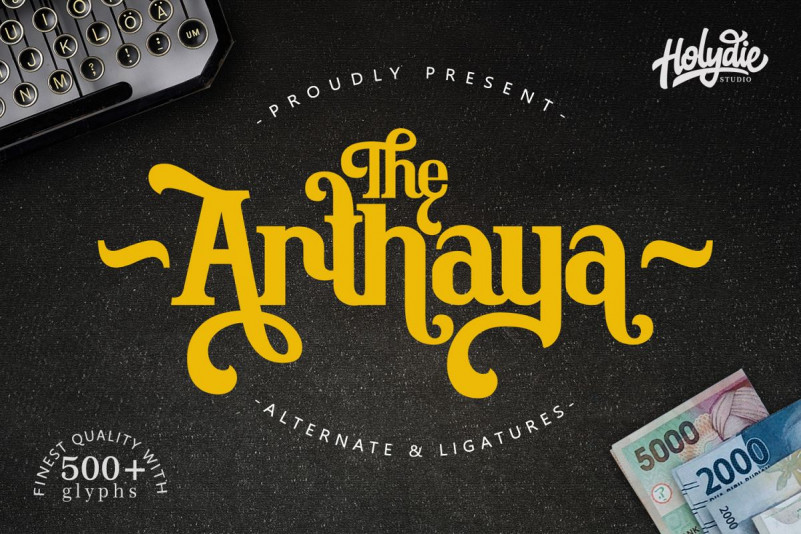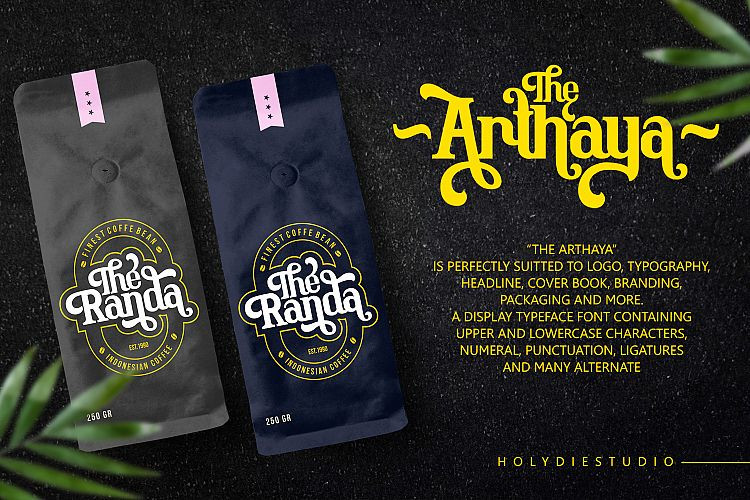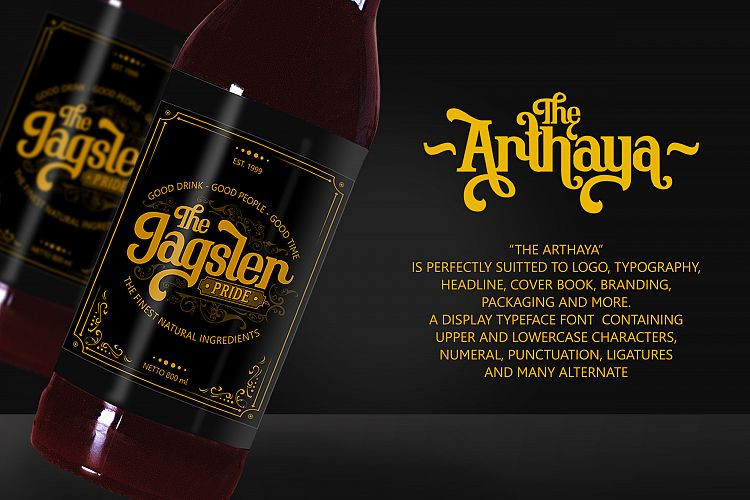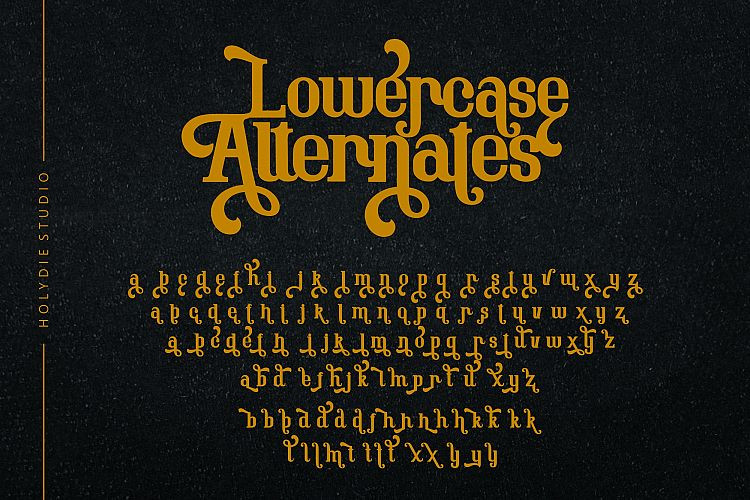
The Arthaya Display Font
Hi Font Lovers! This is a well-balanced contemporary font with beautiful curved and ligatures. It is a display serif font with moderate contrast. Presenting The Arthaya Font. The Arthaya is nicely balanced curves with a little aesthetic touch. Strong character Perfectly for headlines, logos, posters, packaging, T-shirts, postcards and much more.